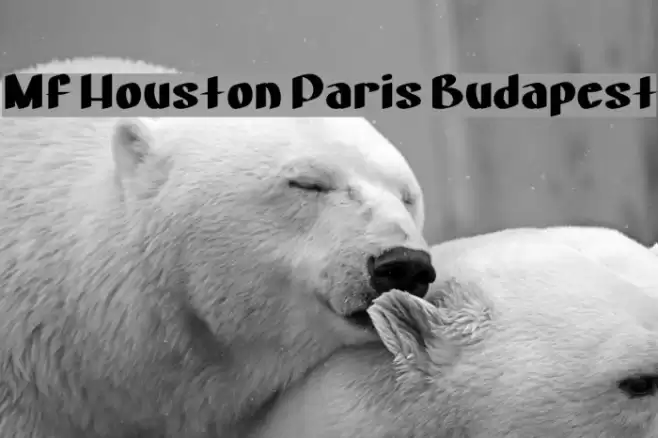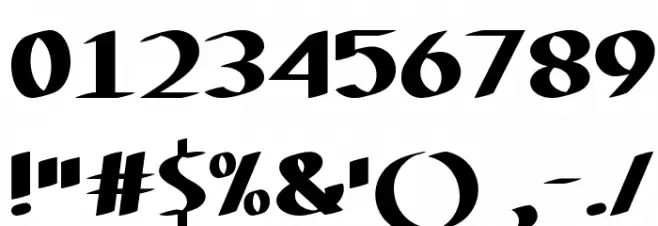
Mf Houston Paris Budapest Font
Mf Houston Paris Budapest Description
This font features a bold and dynamic style with a strong presence. The characters are designed with sharp, angular edges and a slight slant, giving them a sense of motion and energy. The uppercase letters are particularly striking, with a unique flair that makes them stand out. The lowercase letters maintain the same boldness, ensuring consistency across the typeface. The numbers are equally bold and maintain the same angular design, making them easily readable. Special characters are included, each designed to match the overall aesthetic of the font. This font is perfect for making a statement, with its eye-catching design and strong visual impact.
A bold, angular font with a dynamic and energetic style from Uncategorized fonts.